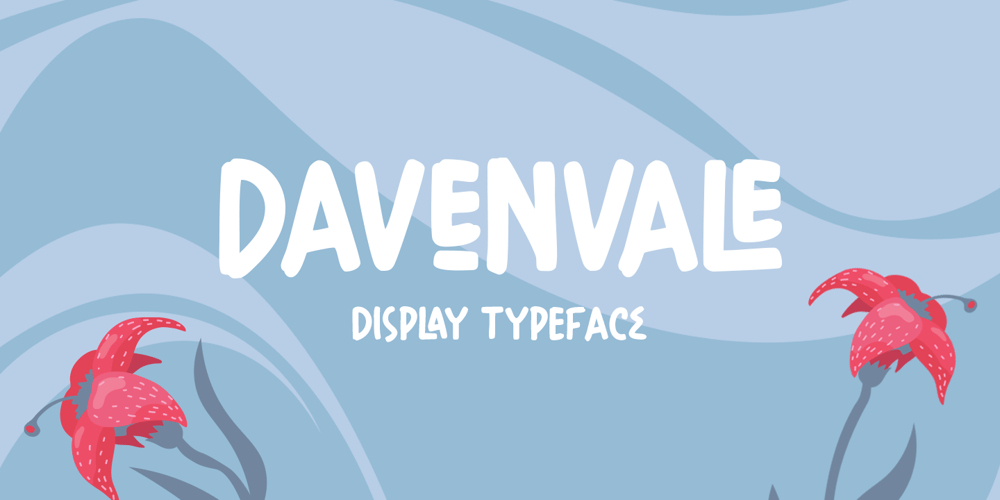
Davenvale Font Family was designed by Hendry Juanda and published by Letterhend. Davenvale contains 1 styles and family package options. Introducing, Davenvale Display Typeface. This font looks great and standout for tittle, headline, logo, etc. Perfectly to be applied to the other various formal forms such as invitations, labels, logos, magazines, books, greeting / wedding cards, packaging, fashion, make up, stationery, novels, labels or any type of advertising purpose.Features : uppercase & lowercase numbers and punctuation multilingual alternates & ligatures PUA encoded We highly recommend using a program that supports OpenType features and Glyphs panels like many of Adobe apps and Corel Draw, so you can see and access all Glyph variations.